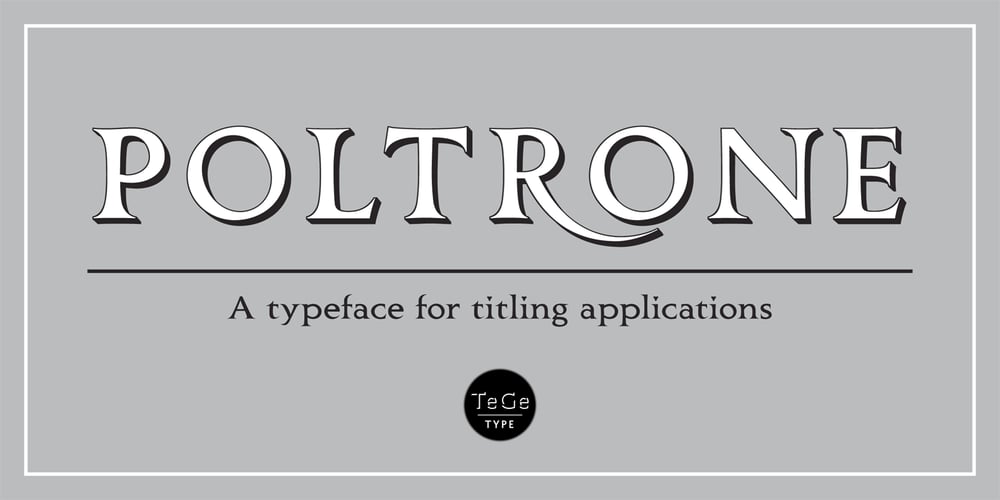
Poltrone
Poltrone font
Poltrone Font Family was designed by published by TeGeType. Poltrone contains 5 styles and family package options. The Poltrone typefaces family was inspired by the public inscriptions of the 19th century and was designed to be used for titling, headlines, etc.